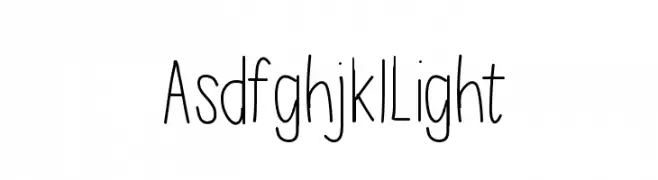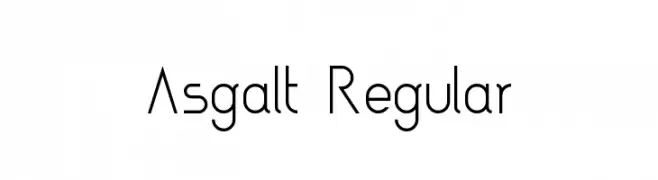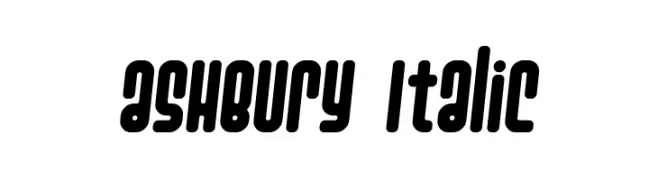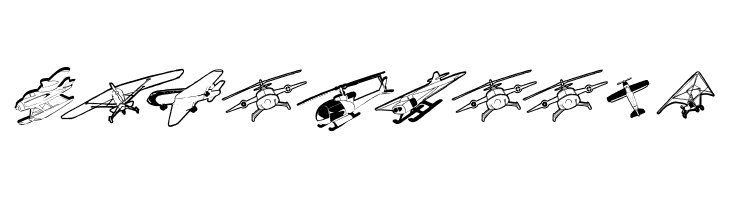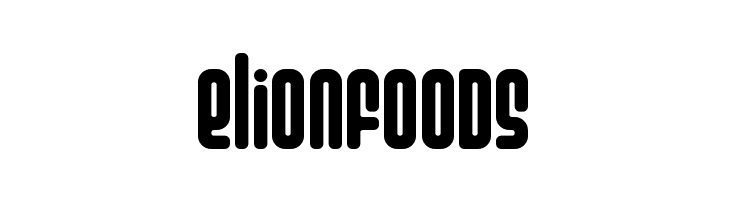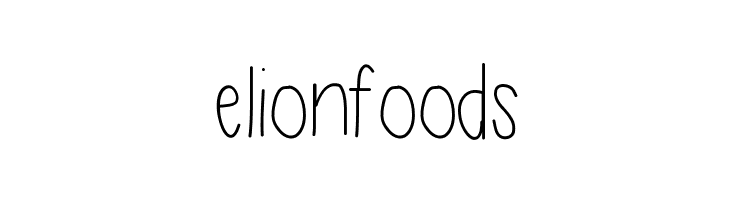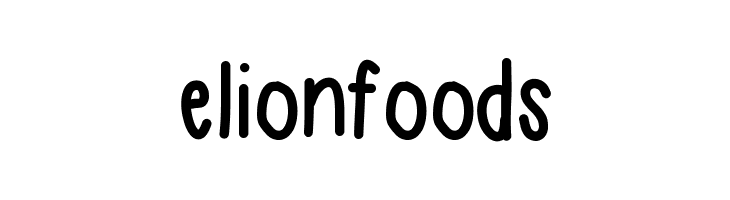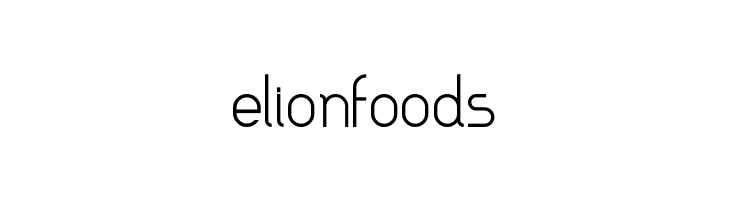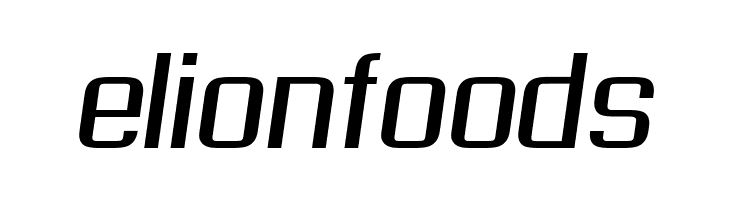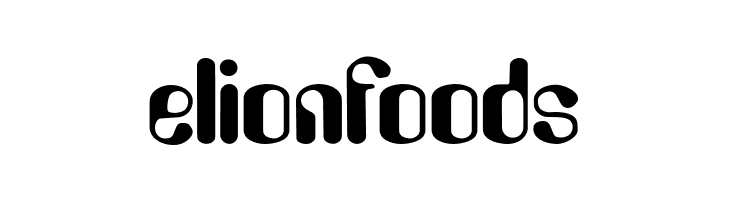
A modern, geometric font with clean lines and bold uppercase letters.
A modern, slanted font with a sleek and dynamic design.
A novelty font where each character is a different airplane or helicopter illustration.
A bold, playful handwritten font with rounded strokes and a casual style.
A playful, handwritten font with tall, narrow characters and consistent stroke thickness.
A modern, geometric font with clean lines and sharp angles.
A bold, rounded font with a modern and playful style.
A bold, rounded, and italic font with a modern and playful style.
A lively and expressive handwritten font with fluid strokes.